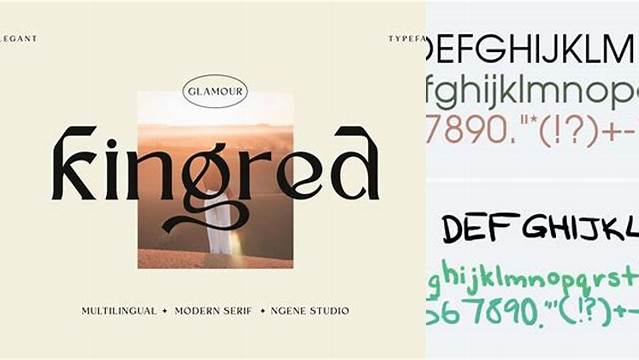
Introduction to Kingred Font
Kingred font, a modern and versatile typeface, has become a favorite among designers and creatives alike. This font, known for its clean lines and contemporary aesthetic, offers a unique blend of elegance and functionality, making it suitable for a wide range of design projects. If you're looking to elevate your design projects, understanding the nuances of Kingred font is crucial. Its versatility allows it to shine in various applications, from branding and advertising to web design and print media. The sleek and modern design of Kingred adds a touch of sophistication to any project, making it a go-to choice for designers aiming to create a lasting impression. Whether you're crafting a logo, designing a website, or working on a marketing campaign, Kingred font can help you achieve a polished and professional look. The unique character shapes and balanced proportions of Kingred ensure readability and visual appeal, making it an excellent choice for both headlines and body text. In the realm of typography, choosing the right font can make or break a design. Kingred offers a harmonious balance between style and practicality, ensuring your message is conveyed clearly and attractively. The subtle details in each character contribute to the overall aesthetic, giving your designs a refined and contemporary edge. By exploring the different weights and styles available within the Kingred family, designers can achieve a cohesive and visually striking look across all their projects. So, if you're aiming for a modern and sophisticated design, Kingred font is definitely worth considering. Its adaptability and stylish appearance make it an invaluable asset in any designer's toolkit. Remember, the right font can speak volumes, and Kingred is certainly a typeface that communicates elegance and modernity.
Key Features of Kingred Font
When you're diving into the world of typography, understanding the key features of a font like Kingred is super important. Kingred font boasts several distinctive characteristics that make it a standout choice for modern design projects. First off, its clean and minimalist design is a major plus. The font features sleek lines and a contemporary aesthetic, making it perfect for projects that aim to convey a sense of sophistication and modernity. This clean design also ensures excellent readability, which is crucial for both print and digital applications. Another key feature of Kingred font is its versatility. It’s not just a one-trick pony; this font can be used in a wide array of design contexts. Whether you're designing a logo, creating website headers, or laying out body text, Kingred adapts seamlessly. This adaptability stems from its balanced proportions and well-crafted letterforms, which ensure visual harmony and consistency across different sizes and weights. The font family typically includes various weights, from light to bold, providing designers with a spectrum of options to play with. These different weights allow you to create visual hierarchy and emphasize key elements in your design. For instance, you might use a bold weight for headings and a lighter weight for body text, ensuring a clear and engaging reading experience. Furthermore, Kingred font often includes both uppercase and lowercase letters, as well as numerals and punctuation marks, all designed with the same attention to detail. This comprehensive character set ensures that you have everything you need to create complete and polished designs. The consistent styling across all characters helps maintain a cohesive look, which is vital for branding and other visual communications. In addition to its aesthetic qualities, Kingred font is also designed with practicality in mind. It’s optimized for both screen and print, meaning it looks great whether it’s displayed on a computer monitor or printed on paper. This is essential for ensuring that your designs maintain their visual impact across different media. So, when you're looking for a font that combines modern elegance with practical functionality, Kingred is a solid choice. Its key features—clean lines, versatility, various weights, and comprehensive character set—make it a valuable asset for any design project.
Tips for Using Kingred Font in Your Designs
Okay, so you've downloaded and installed Kingred font, which is awesome! Now, let's dive into some tips on how to use it effectively in your designs. Kingred, with its modern and clean aesthetic, can really elevate your projects if used thoughtfully. First off, think about the context of your design. Kingred font shines in projects that aim for a contemporary and sophisticated feel. It's perfect for branding materials, website headers, editorial layouts, and even minimalist posters. Its clean lines make it incredibly versatile, but it’s essential to match the font's style with the overall tone of your design. When it comes to typography, less is often more. Kingred is a strong font, so you don’t need to overdo it with excessive styling or effects. Keep it simple and let the font’s natural elegance speak for itself. Avoid using too many different fonts in one design; pairing Kingred with a simple sans-serif or a classic serif font can create a balanced and harmonious look. Pay attention to the font weight. Kingred typically comes in various weights, from light to bold. Use these weights to create visual hierarchy in your design. For example, use a bold weight for headings to grab attention and a lighter weight for body text to ensure readability. This contrast helps guide the viewer's eye and makes the content more engaging. Kerning and leading are your friends! Adjusting the spacing between letters (kerning) and lines (leading) can significantly impact the readability and visual appeal of your text. Make sure the text is comfortable to read, especially in longer paragraphs. Good kerning and leading can make a huge difference in the overall polish of your design. Consider the color palette of your design. Kingred font works well with a variety of colors, but it particularly complements minimalist and modern color schemes. Think about using a contrasting color for the text to make it stand out, or opt for a monochromatic palette for a sleek and sophisticated look. Remember to test your designs across different mediums. What looks great on your computer screen might not translate as well in print or on different devices. Always preview your designs in various formats to ensure the Kingred font maintains its clarity and impact. Finally, don’t be afraid to experiment! Typography is an art, and the best way to learn is by trying different things. Play around with different sizes, weights, and styles of Kingred to see what works best for your project. So, with these tips in mind, you’re well-equipped to make the most of Kingred font in your designs. Have fun creating amazing visuals!
In conclusion, Kingred font is an excellent choice for designers looking to add a touch of modern elegance to their projects. Its clean lines, versatility, and various weights make it suitable for a wide range of applications, from branding and advertising to web design and print media. Whether you're crafting a logo, designing a website, or working on a marketing campaign, Kingred font can help you achieve a polished and professional look. Remember, finding a reliable source to download the font for free is essential, and there are several reputable websites where you can do so, such as DaFont, FontSpace, and Behance. Always pay attention to the licensing terms to ensure you're using the font legally. Installing Kingred font on your computer is a straightforward process, whether you're using Windows or macOS. Simply download the font files, extract them, and install them through the Control Panel (Windows) or Font Book (macOS). Once installed, the font is ready to use in your applications. When using Kingred font in your designs, keep in mind the context of your project and aim for a contemporary and sophisticated feel. Less is often more, so avoid overdoing it with excessive styling or effects. Pay attention to font weight, kerning, and leading to ensure readability and visual appeal. Test your designs across different mediums to ensure the font maintains its clarity and impact. By following these tips, you can effectively incorporate Kingred font into your designs and create stunning visuals. So, go ahead and explore the possibilities with Kingred font and elevate your design projects to the next level! Its modern aesthetic and versatility make it a valuable asset in any designer's toolkit.